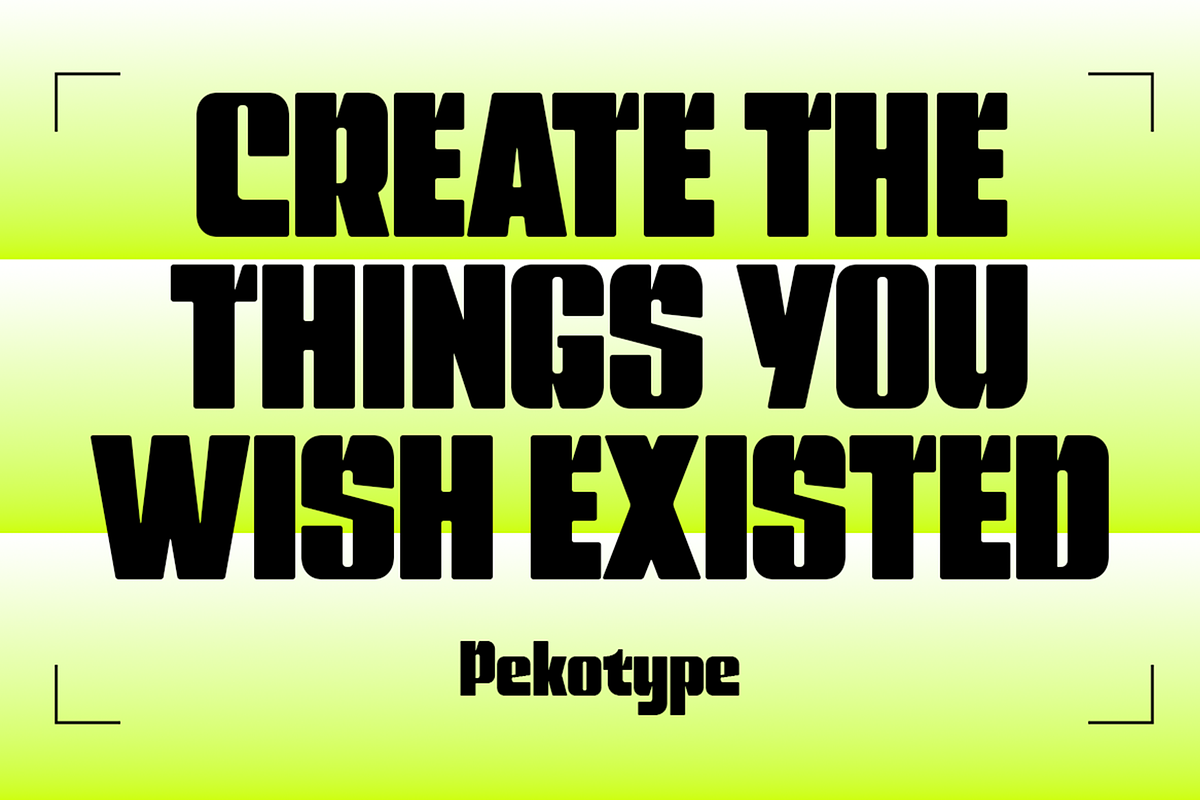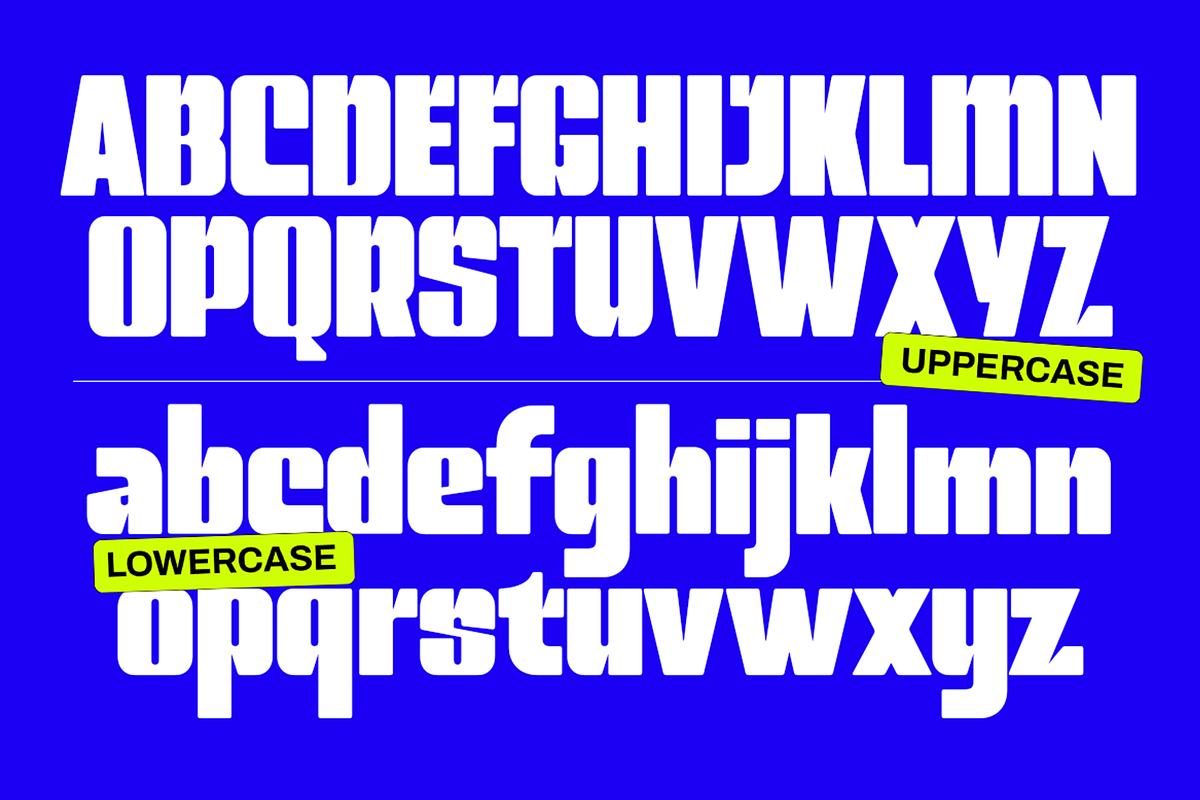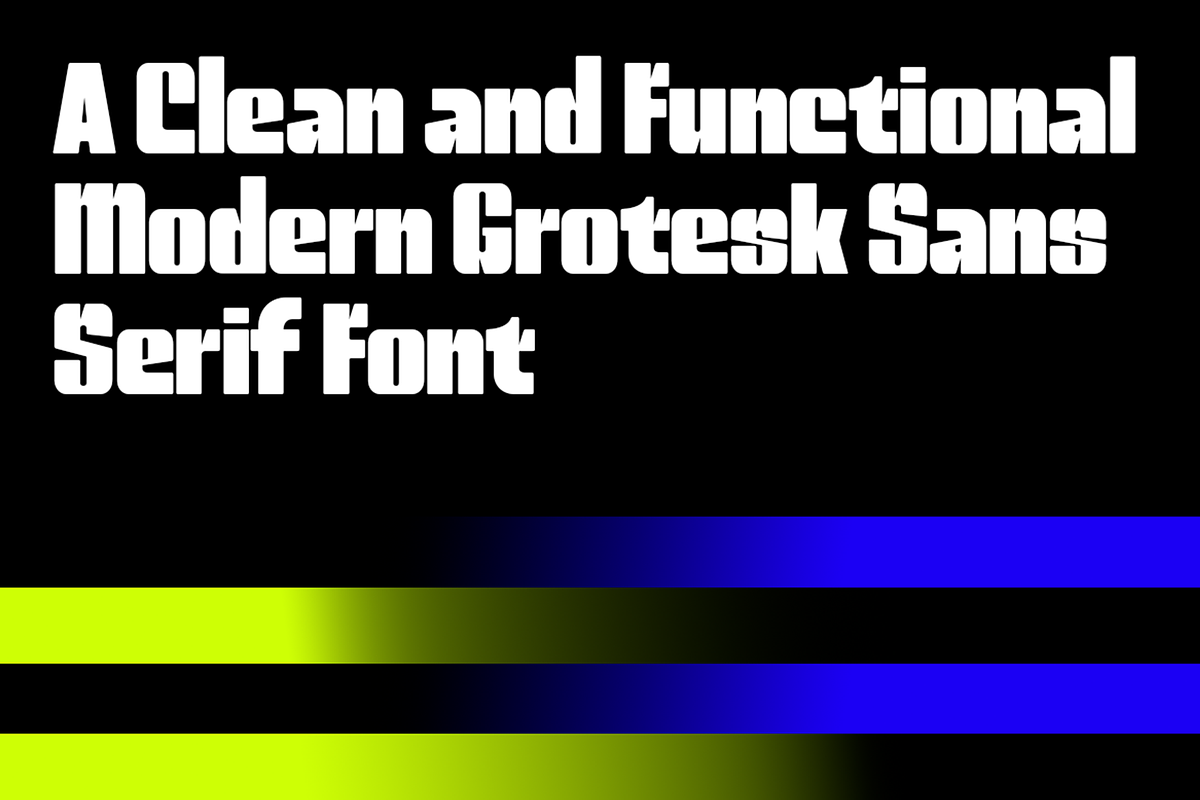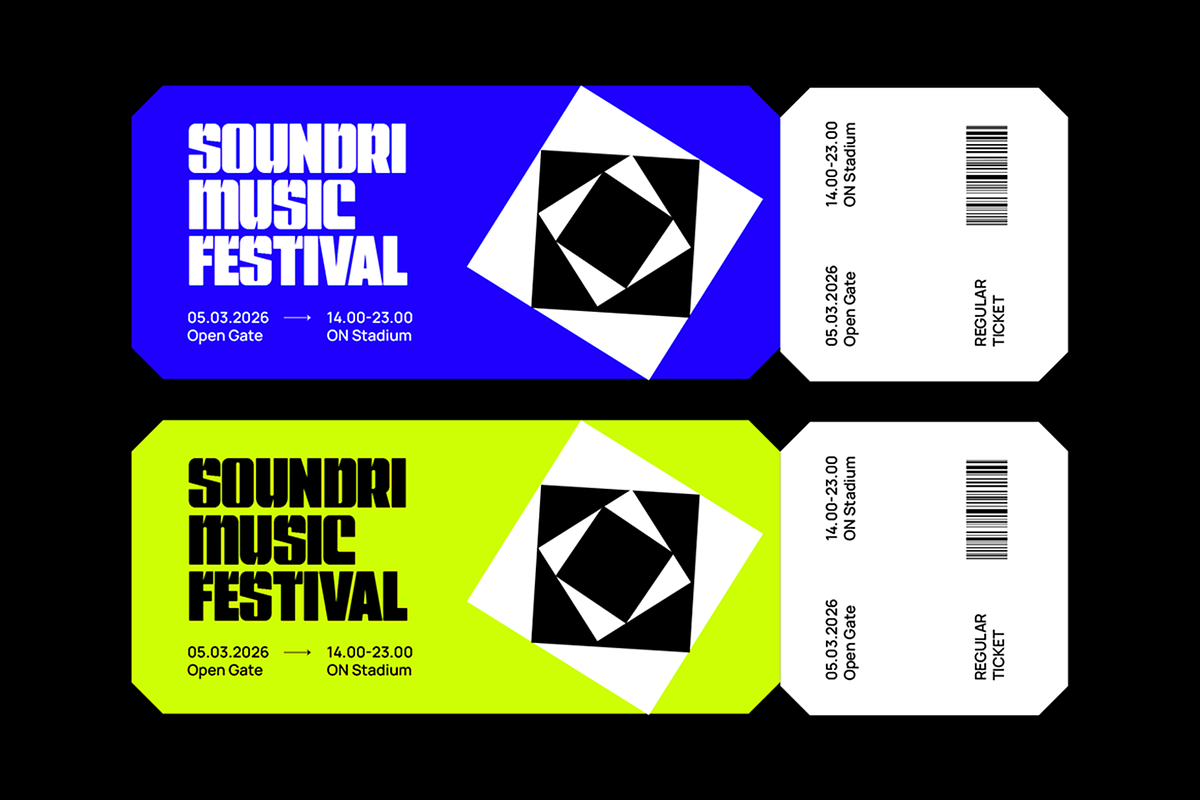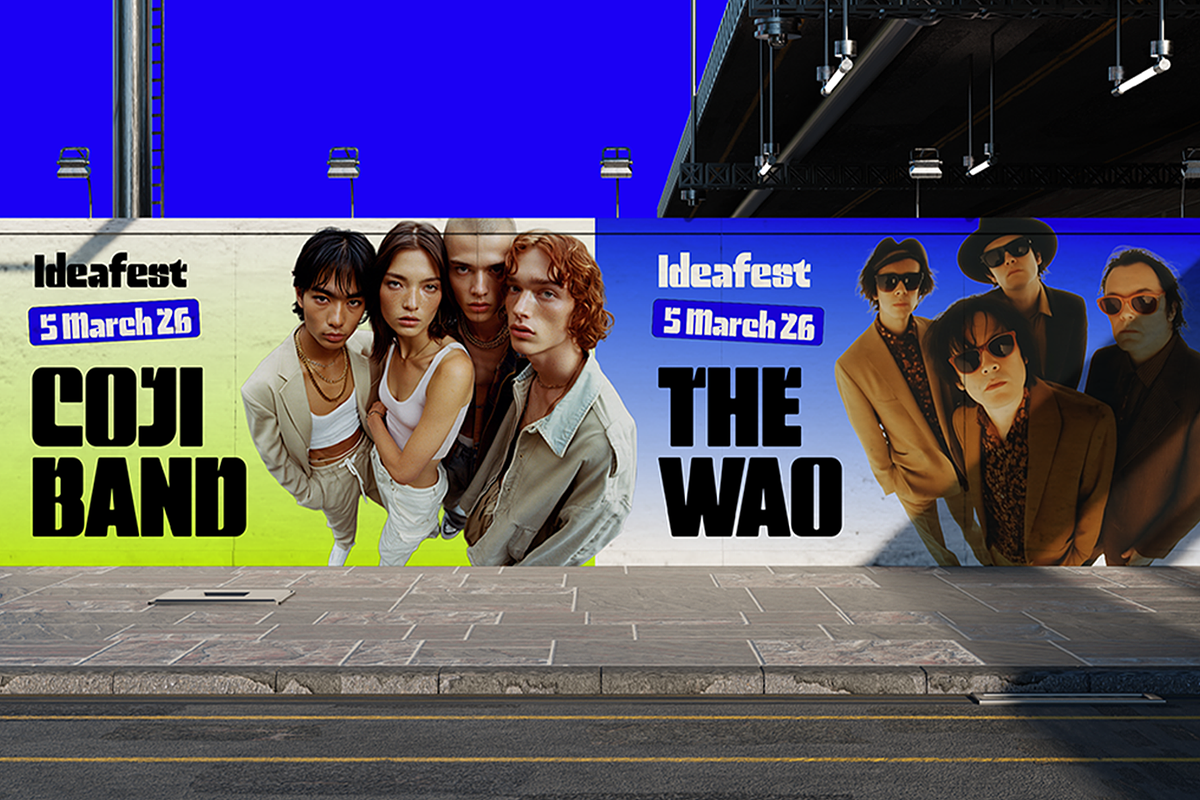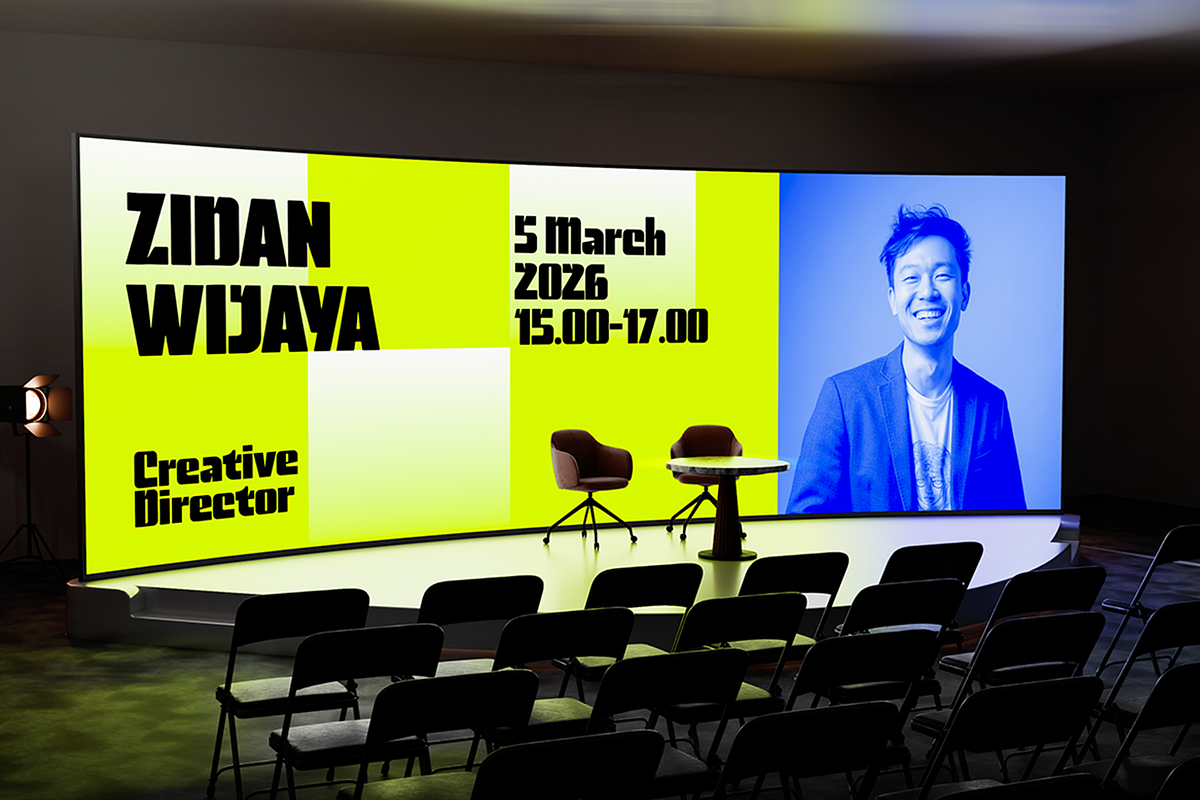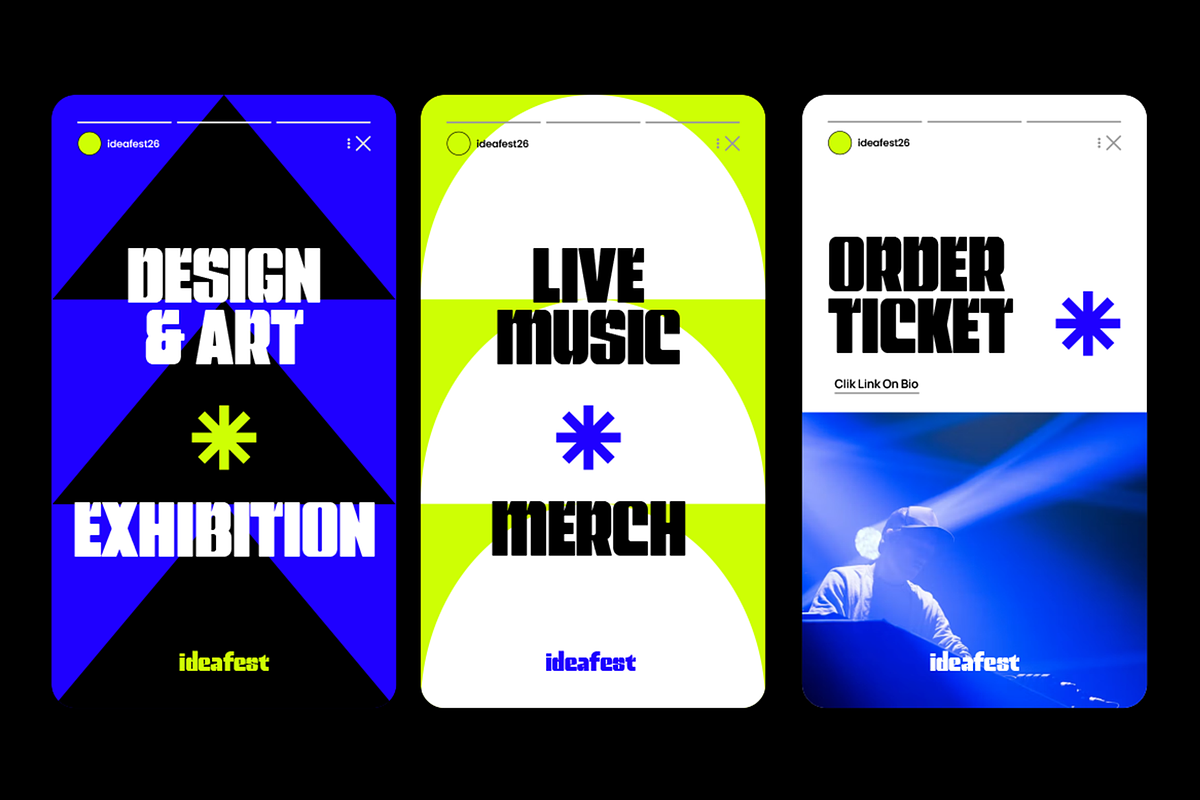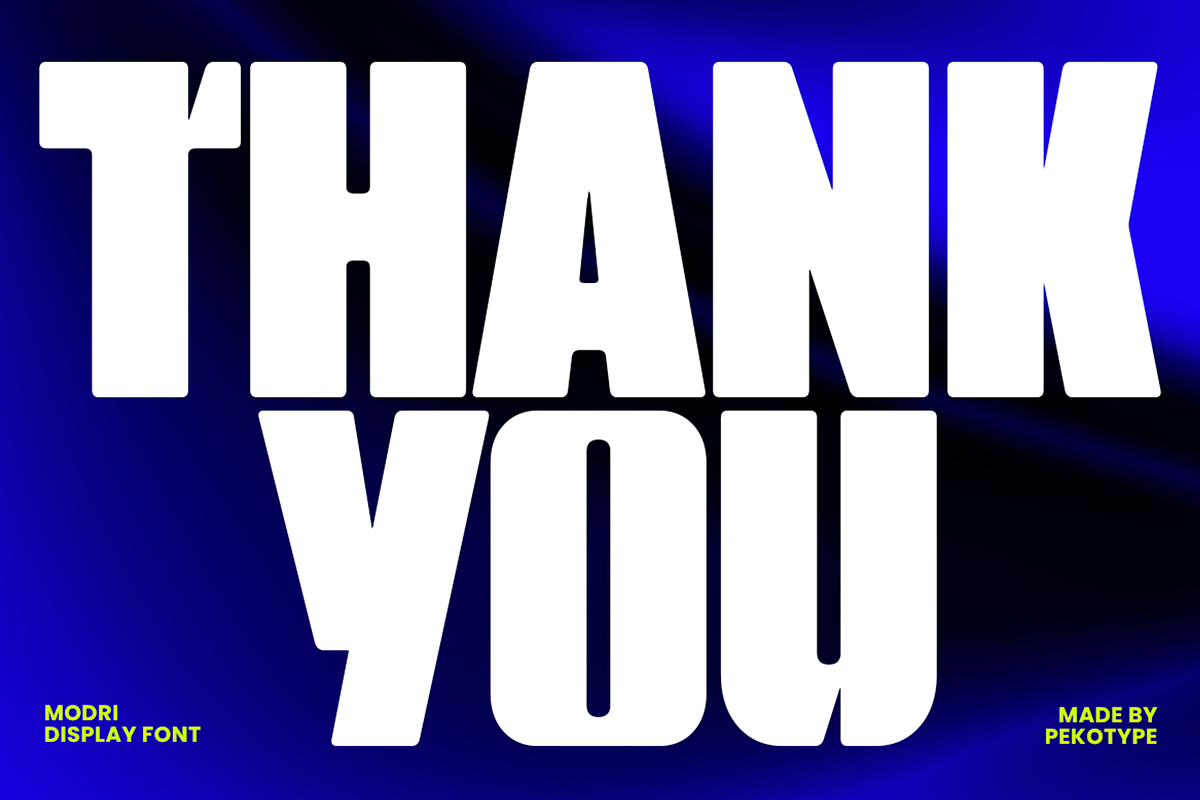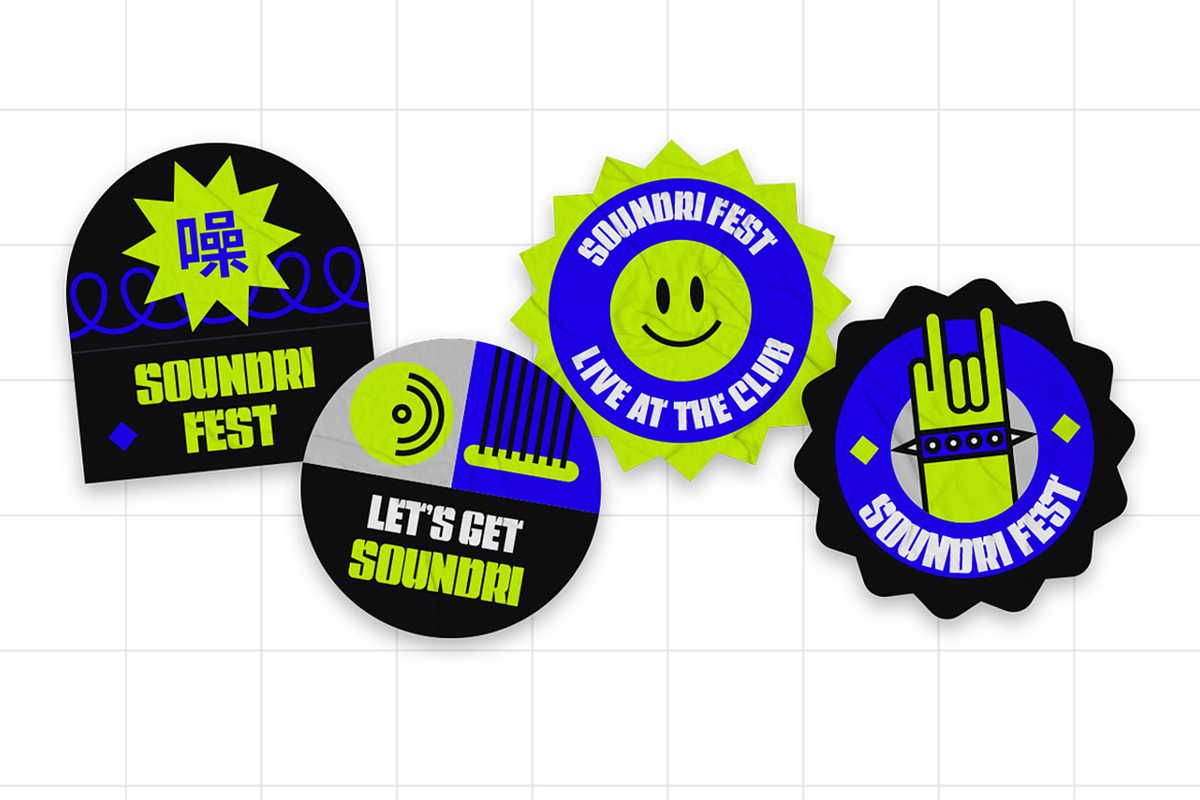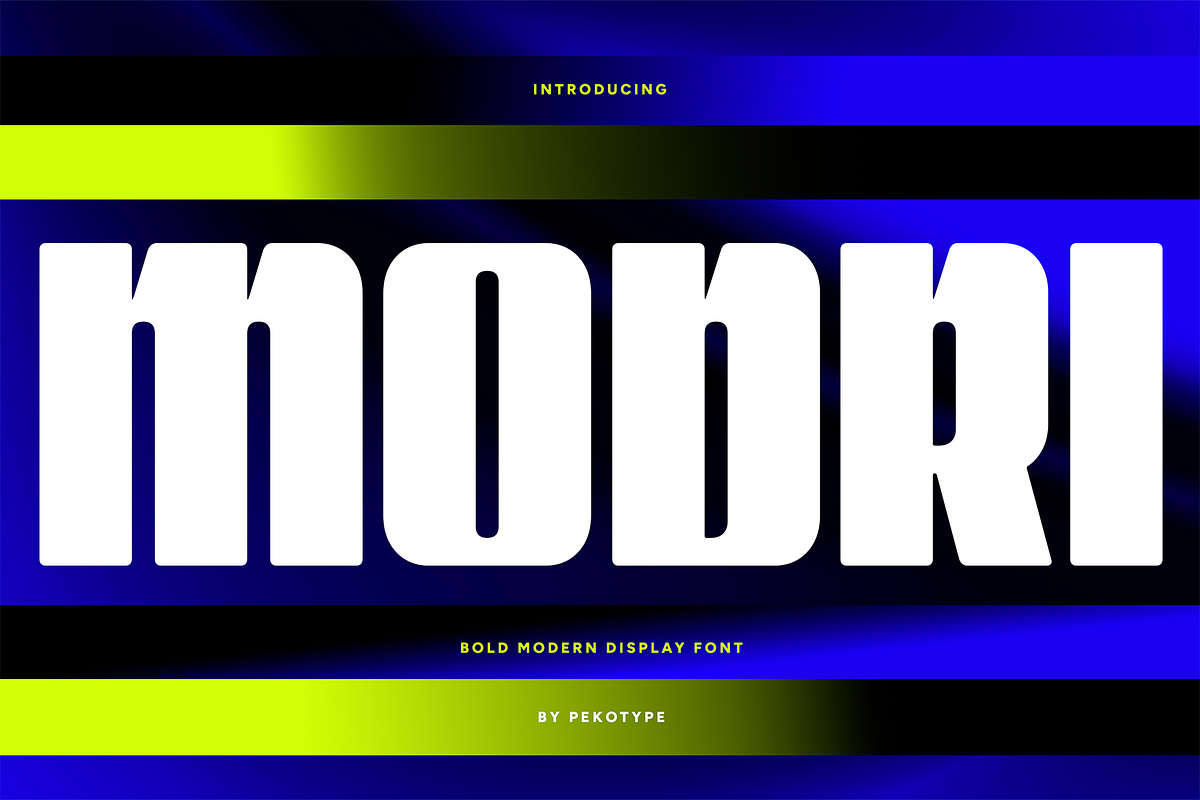
Modri - Bold Modern Grotesk Sans
MODRI is a clean, bold modern grotesk sans serif display font built for clarity and impact. Its tall proportions, sharp edges, and functional structure give it a confident contemporary voice that feels professional yet energetic. MODRI balances minimal geometry with strong readability, making every headline look precise, powerful, and unmistakably modern. The style feels technical and urban, perfect for visuals that want to communicate speed, innovation, and confidence.
Designed for high-visibility design, MODRI performs beautifully in branding, logos, posters, editorial headlines, tech campaigns, event graphics, social media visuals, advertising, and corporate promotions. It’s especially strong for modern brands, music events, sports visuals, startups, and digital culture projects that need a clean but bold presence. If you want a typeface that feels modern, functional, and built for attention, MODRI delivers a sharp graphic punch without losing usability.